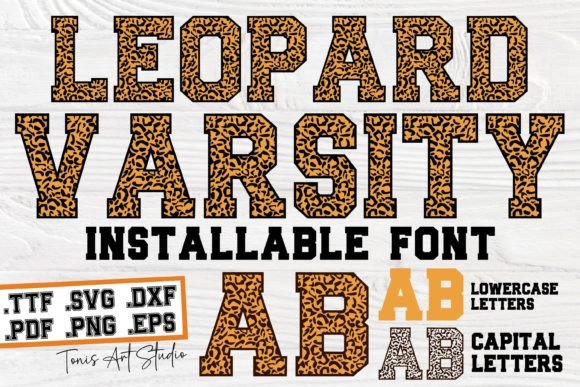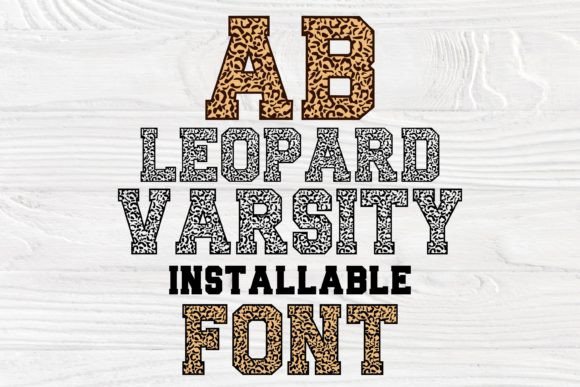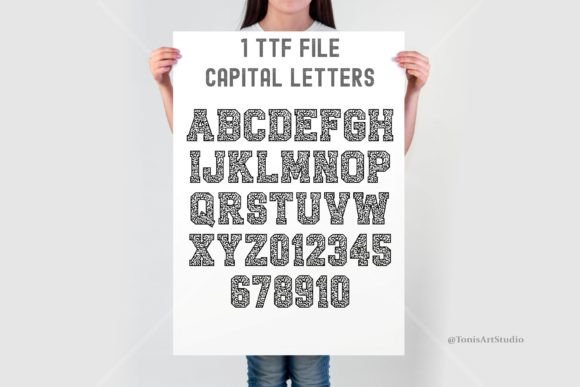
Ab Leopard Varsity Font
About the Ab Leopard Varsity Font
Presenting Ab Leopard Varsity Font, a unique and stylish typeface that will make your work stand out. Transform your creative projects with our versatile Leopard Font Varsity Letters! This unique collection includes SVG, TTF, PNG, DXF, EPS, and PDF files, providing you with a variety of formats to suit your design needs. Perfect for creating custom apparel, home decor, digital designs, and more, this distinctive leopard print combined with classic varsity styling will add a bold and trendy touch to all your crafts.
This font’s bold and playful personality makes it ideal for headlines, short impactful text on posters, and branding elements where a strong visual statement is needed. It works exceptionally well for apparel designs, especially on t-shirts, hoodies, and sportswear, reflecting a youthful and energetic brand. Avoid using it for body text or long paragraphs; its distinctive style is better suited for short bursts of information.
Ab Leopard Varsity pairs well with clean sans-serif fonts like Montserrat or Open Sans for a balanced contrast, offering readability alongside the font’s bold aesthetic. For a more sophisticated look, consider pairing it with a classic serif like Garamond or a slightly more geometric sans-serif like Futura. Avoid pairing it with other highly decorative fonts, as this would create visual clutter.
The overall aesthetic is energetic and trendy, best suited for brands targeting a young, fashion-conscious, or sports-oriented audience. Projects focusing on themes of rebellion, fun, or individuality will particularly benefit from its unique style.